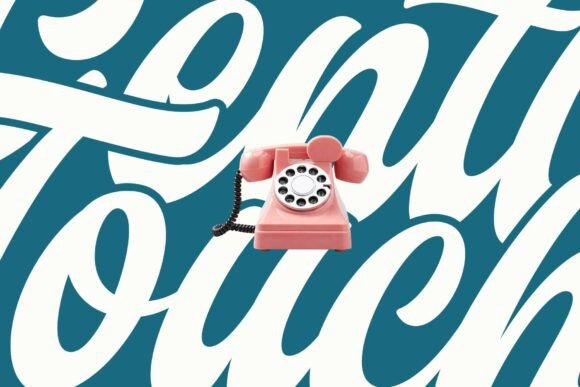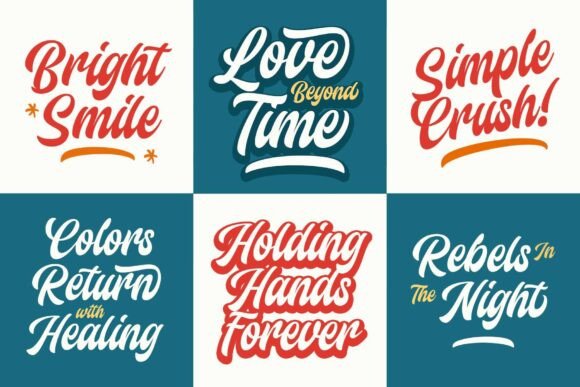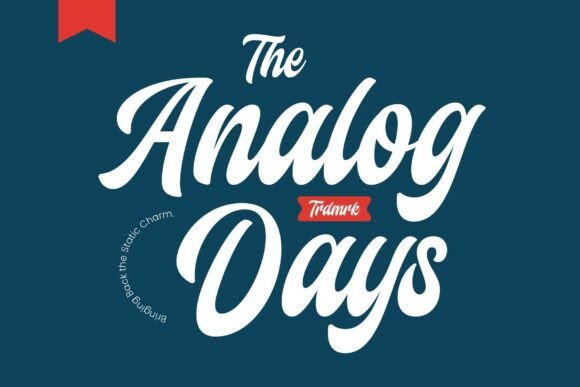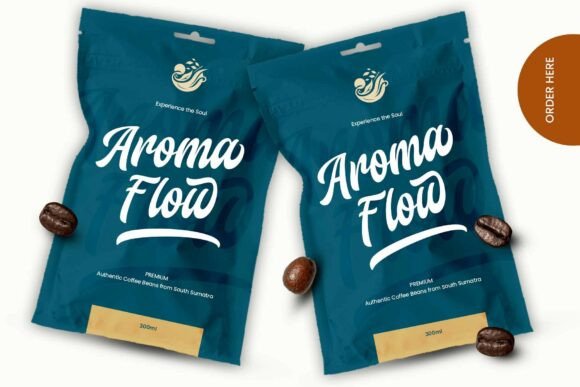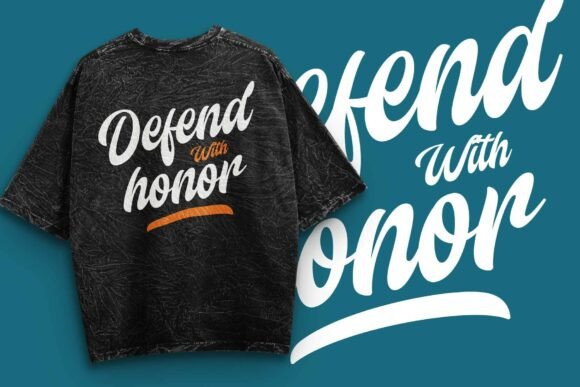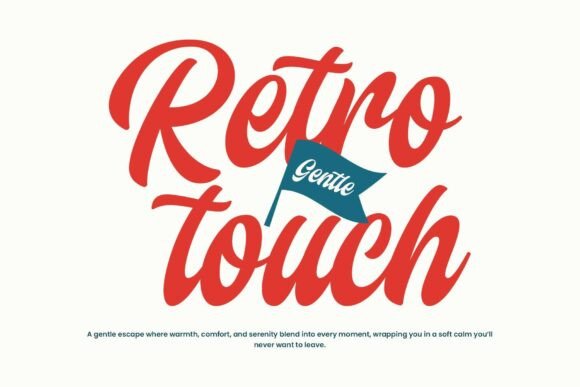
Introducing Camelate Font: Elevate Your Designs with Timeless Elegance
In the world of typography, few fonts manage to strike a balance between timelessness and modernity. Camelate Font is one such exceptional typeface that seamlessly blends vintage charm with contemporary flair. Inspired by classic sign painting and vintage logos, Camelate is a bold script font designed to add a touch of sophistication to your designs.
The Inspiration Behind Camelate
Camelate Font draws its inspiration from the golden age of sign painting and vintage logos. The font’s creator carefully hand-drew each letter, paying close attention to the calligraphic structure that gives Camelate its unique character. The result is a font that exudes a sense of confidence and elegance, perfect for designers looking to add a professional touch to their work.
Key Features of Camelate Font
- Bold and Confident Strokes: Camelate features flowing, confident strokes that give it a dynamic and energetic feel.
- High-Contrast Weight: The font’s high-contrast weight ensures that every word stands out with professional flair, making it perfect for logos, product packaging, and social media headers.
- Stylistic Alternates: Camelate comes with stylistic alternates, allowing designers to add extra flair to their typography and create unique visual identities.
- Calligraphic Structure: The font’s calligraphic structure gives it a timeless feel that works well with a variety of design applications.
Camelate Font is a versatile typeface that can be used in a wide range of design applications. Its bold and confident strokes make it perfect for:
- Logos and Logotypes: Create a lasting impression with a custom logo that exudes professionalism and elegance.
- Upscale Product Packaging: Add a touch of sophistication to your product packaging and make your brand stand out on store shelves.
- Social Media Headers: Create eye-catching social media headers that reflect your brand’s personality and style.
- Merchandise and Sports Themes: Use Camelate to create unique and stylish merchandise, such as t-shirts, hats, and sports equipment.
- Flags, Banners, and Stickers: Add a professional touch to your flags, banners, and stickers with Camelate’s bold and confident strokes.
- Labels and Posters: Use Camelate to create eye-catching labels and posters that grab attention and communicate your message effectively.
Why Choose Camelate Font?
With so many fonts available, why choose Camelate? Here are just a few reasons why designers and crafters love Camelate:
- Unique and Distinctive Look: Camelate’s blend of vintage charm and modern flair makes it a standout in any design.
- Professional and Elegant: The font’s confident strokes and high-contrast weight give it a professional and elegant feel that’s perfect for a variety of design applications.
- Easy to Read: Despite its bold and expressive nature, Camelate is easy to read, making it perfect for use in a variety of contexts.
- Highly Versatile: Camelate can be used in a wide range of design applications, from logos and packaging to social media headers and posters.
Camelate Font is a truly exceptional typeface that offers a unique blend of vintage charm and modern flair. With its bold and confident strokes, high-contrast weight, and stylistic alternates, Camelate is the perfect choice for designers looking to add a touch of sophistication to their work. Whether you’re creating logos, product packaging, or social media headers, Camelate is sure to make a lasting impression.